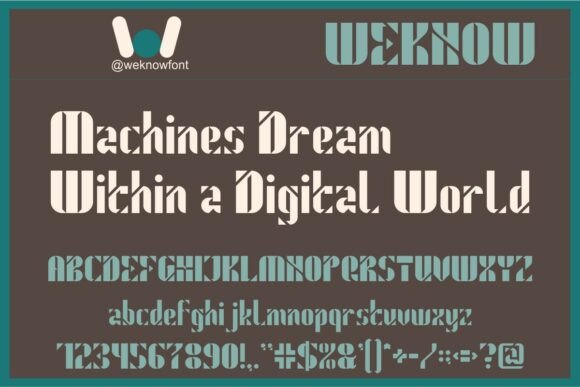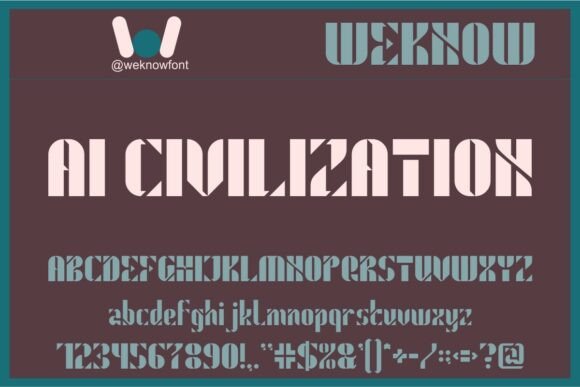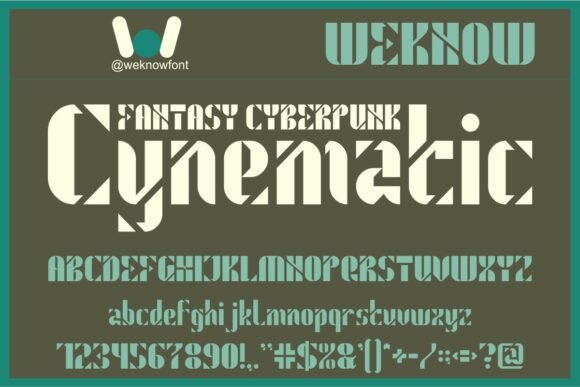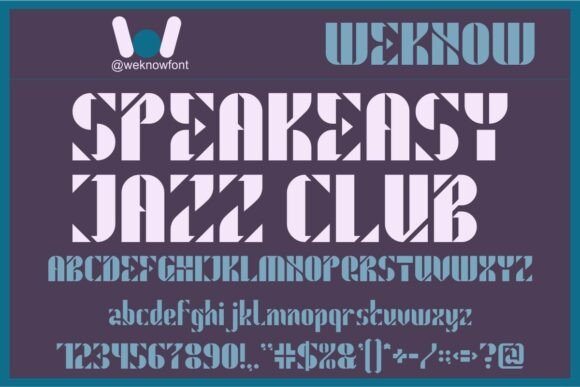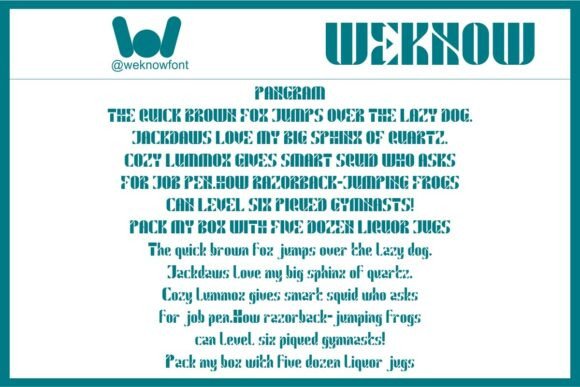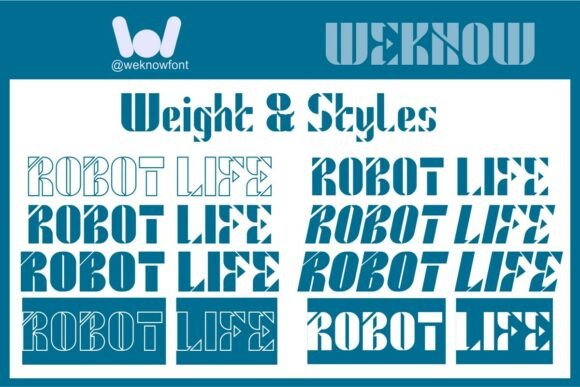
Introduction to Robot Life Font
Introducing Robot Life, a mesmerizing fusion of Neo Deco, Jazz Age and Gothic Deco styling intertwined with a Vintage Ornamental Serif allure.
Grasping the drama of Noir and the sophistication of Retro Luxury, this font exudes an air of Medieval Deco It doesnโt stop there, Robot Life extends into the realms of Techno, Sci-Fi and Cyberpunk, providing it with a unique edge.
Key Features of Robot Life Font